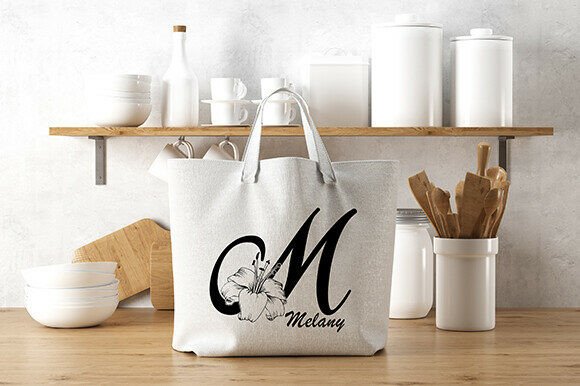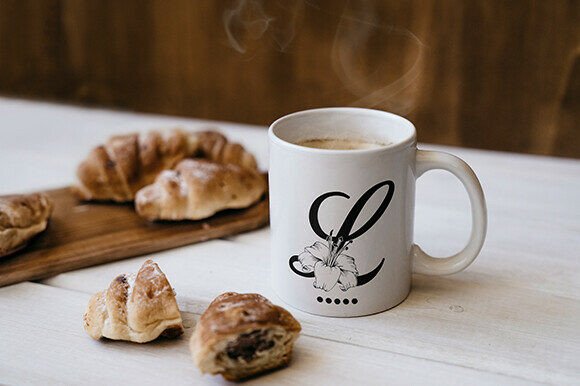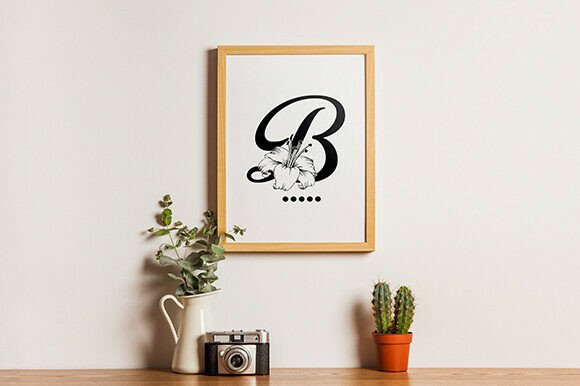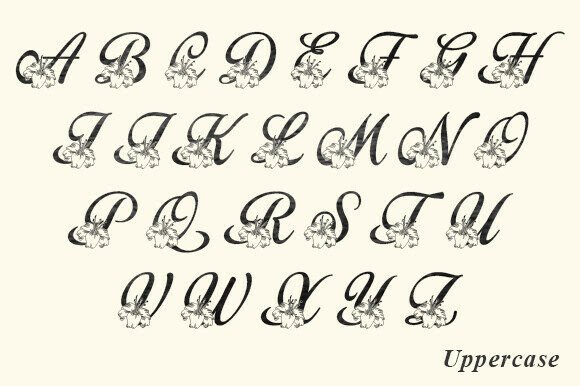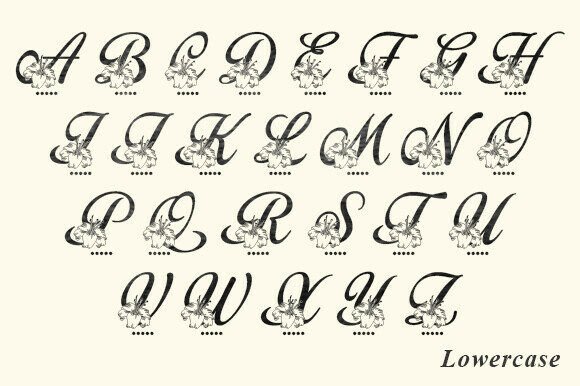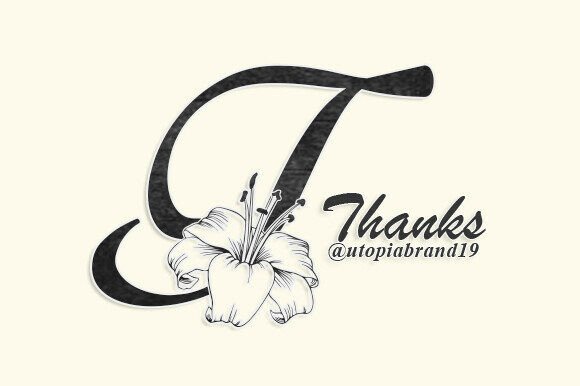
Unleashing Elegance: The Beauty Lilly Font
As a designer, there’s a moment when a new project sparks your imagination, and you envision the perfect visual identity. It’s that fleeting instant when creativity meets possibility. For many of us, it’s about crafting a brand that exudes luxury, sophistication, and refinement. That’s where the Beauty Lilly Font comes in – a script font designed to capture the essence of high-end boutique branding.
With its flowing, hand-drawn letterforms and refined, airy weight, the Beauty Lilly Font is the perfect choice for upscale cosmetic packaging, independent jewelry branding, and bridal invitation suites. Its classic rhythm and organic elegance make it a valuable asset for designers seeking to create timeless, luxurious visuals. Whether you’re working on a high-end beauty brand or a luxury-spa social media campaign, the Beauty Lilly Font is sure to elevate your designs and leave a lasting impression.
Beauty Lilly Font Key Features
- Font Family: Beauty Lilly Font is a modern, elegant script font.
- Unique Characteristics: Beauty Lilly Font features swashes, ligatures, and contextual alternates, making it perfect for creating beautiful and unique typography.
Designer Review: Beauty Lilly Font
Beauty Lilly Font is a beautiful and elegant script font that can add a touch of sophistication to any design project. ✨ The font’s flowing lines and delicate curves make it perfect for creating a feminine and romantic feel. It’s great for use in wedding invitations, greeting cards, or any other design where you want to convey a sense of luxury and elegance.
- ✨ Elegant and flowing lines
- ✨ Perfect for creating a feminine and romantic feel
- ✨ Great for use in wedding invitations, greeting cards, and other designs
However, there are some limitations to consider. ⚠️ The font may not be suitable for use in large block of text, as the spacing between letters can be inconsistent. Additionally, the font may not be as versatile as some other script fonts, and may not be suitable for use in bold or italic styles.
- ⚠️ May not be suitable for use in large block of text
- ⚠️ Limited versatility, may not be suitable for bold or italic styles
Overall, Beauty Lilly Font is a beautiful and elegant script font that can add a touch of sophistication to any design project. While it may have some limitations, it’s a great choice for designers looking to create a feminine and romantic feel.
For the best results, use the Beauty Lilly Font in combination with elegant graphics and a minimalist color scheme.
Experiment with different font sizes and styles to create a unique and eye-catching design.
The Beauty Lilly Font is perfect for:
Beauty and wellness branding
High-end fashion and luxury design